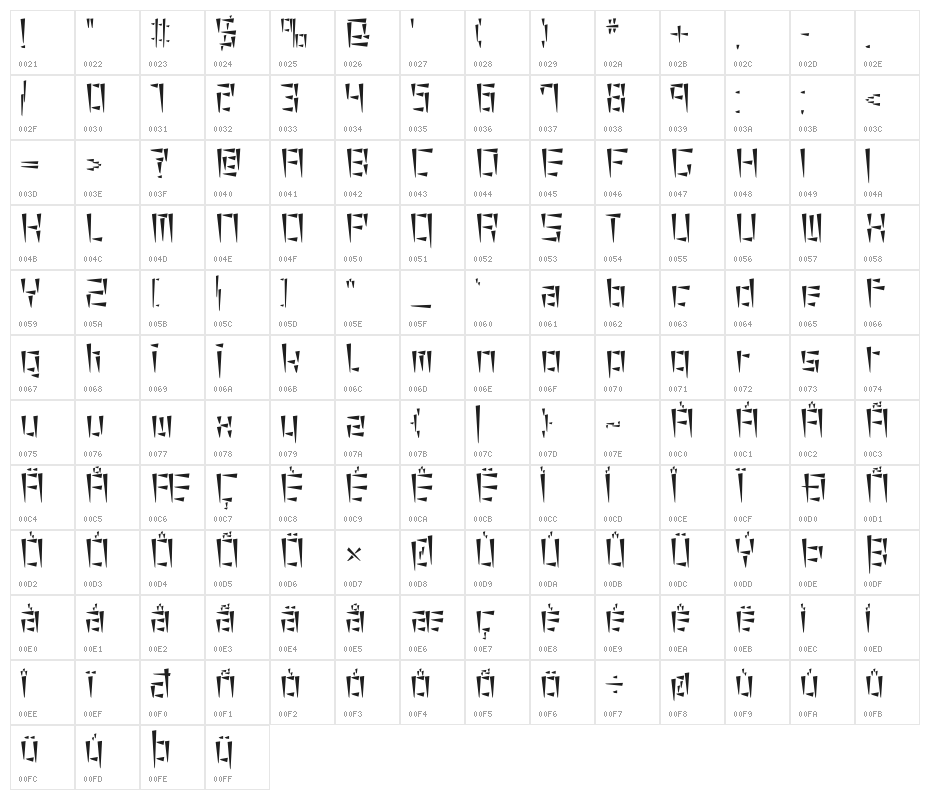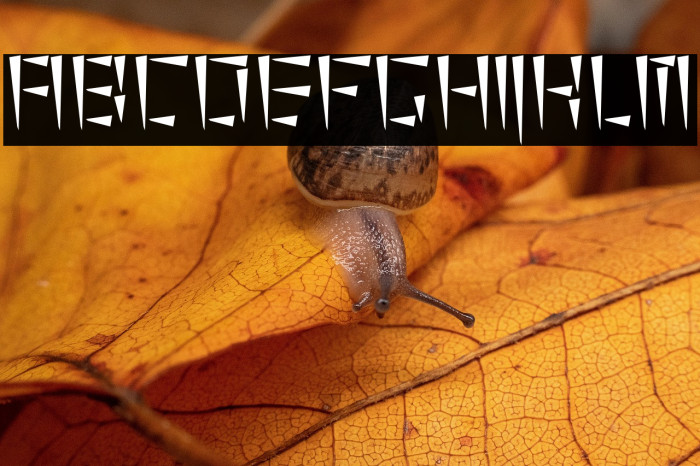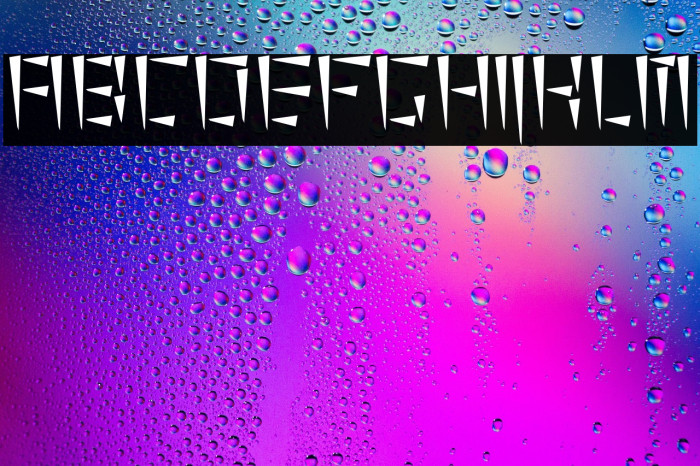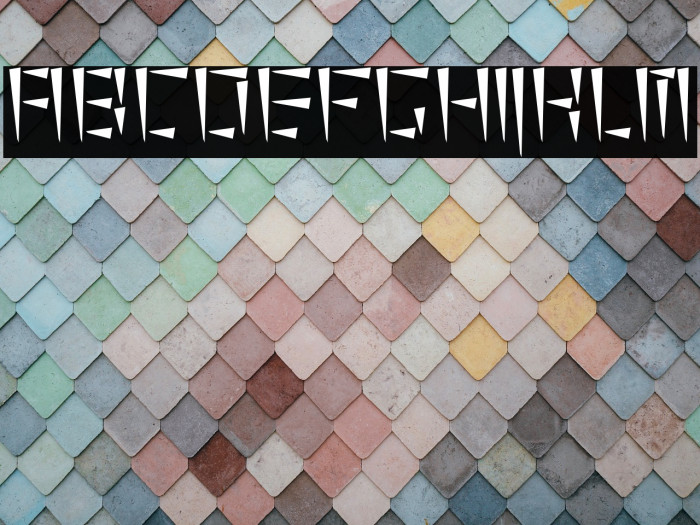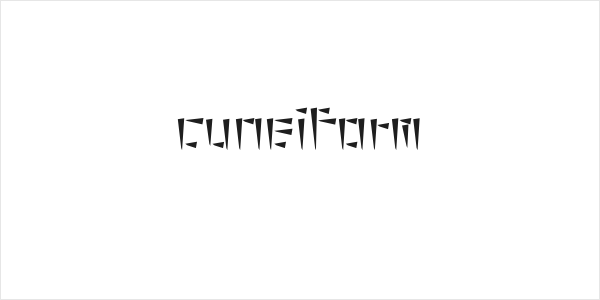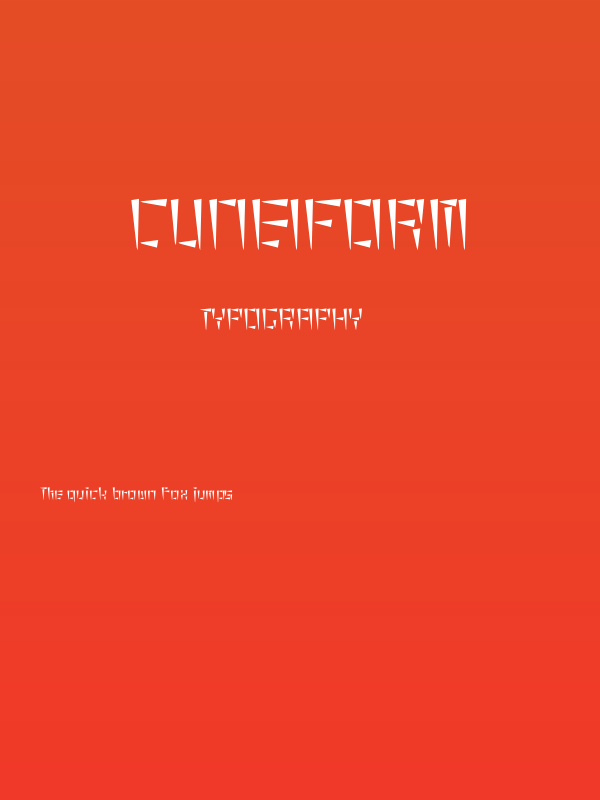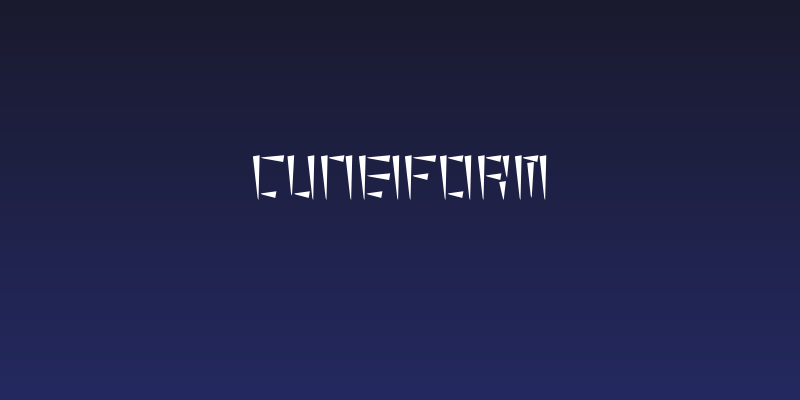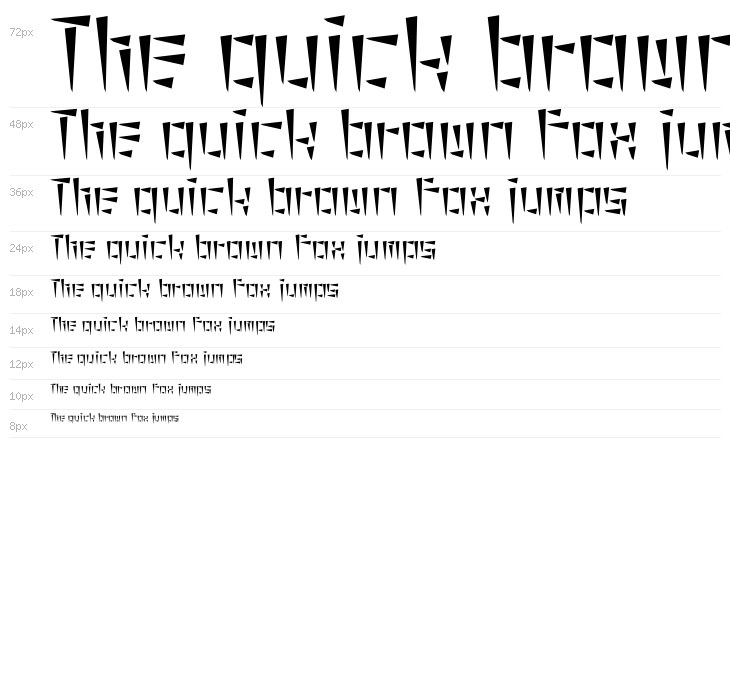
cuneiform Font
cuneiform Description
This font features a unique, angular design reminiscent of ancient cuneiform script. Each character is composed of sharp, triangular shapes that create a bold and striking appearance. The uppercase and lowercase letters maintain a consistent style, with a geometric and abstract form that gives the font a distinct, historical feel. The numbers and special characters follow the same design principles, ensuring uniformity across all glyphs. This font's unconventional style makes it stand out, offering a visual connection to ancient writing systems while maintaining modern readability.
| Use Case | Logos, Posters, Headlines |
| Proposed Projects | Ideal for historical themed projects, artistic designs, or any creative work that requires a distinctive and bold typeface. |